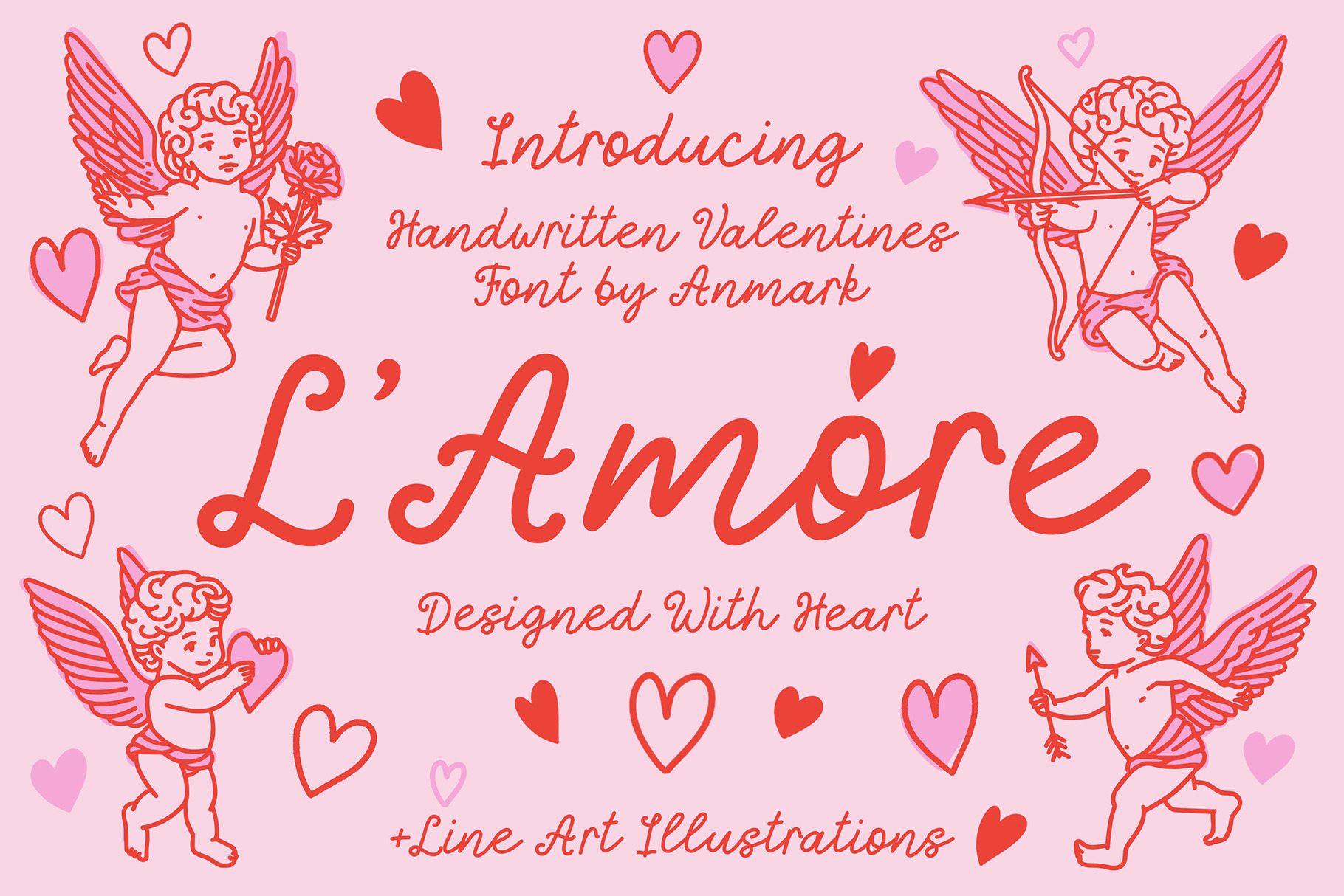
L'Amore | Handwritten Script Font
Introducing L'Amore, a captivating script font that seamlessly combines whimsical vintage charm with contemporary elegance. This font features a wide range of languages - Spanish, German, French, Italian, Portuguese, Swedish, Norwegian, Danish, Finnish, and more (ÁÀÂÄÃÅÆĆÇÐÉÈÊËÍÌÎÏŁÑÓÒÔÖÕØŒŚÚÙÛÜÝŸŹŻÞ áàâäãåąæćçðéèêëęíìîïłńñóòôöõøœśúùûüýÿźżß).
Ideal for crafting beautiful greeting cards, holiday invitations for Christmas, Valentine's Day, Easter, and other special occasions. L'Amore adds a charming flair to wedding monograms, invitations, menus, logos, packaging, and beyond. Its elegant yet whimsical style makes it a versatile choice for any creative project, infusing a warm, nostalgic vibe into your designs.